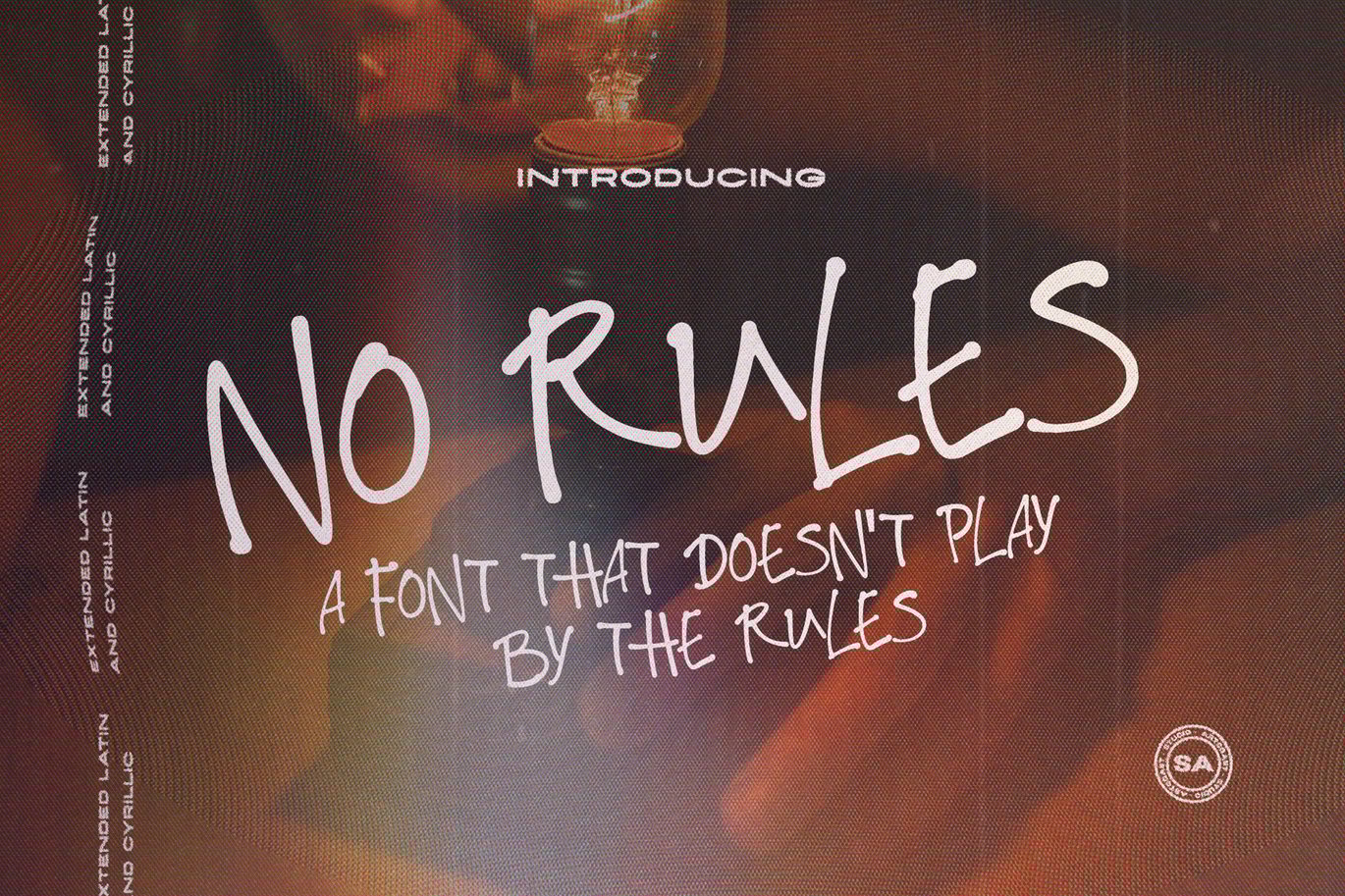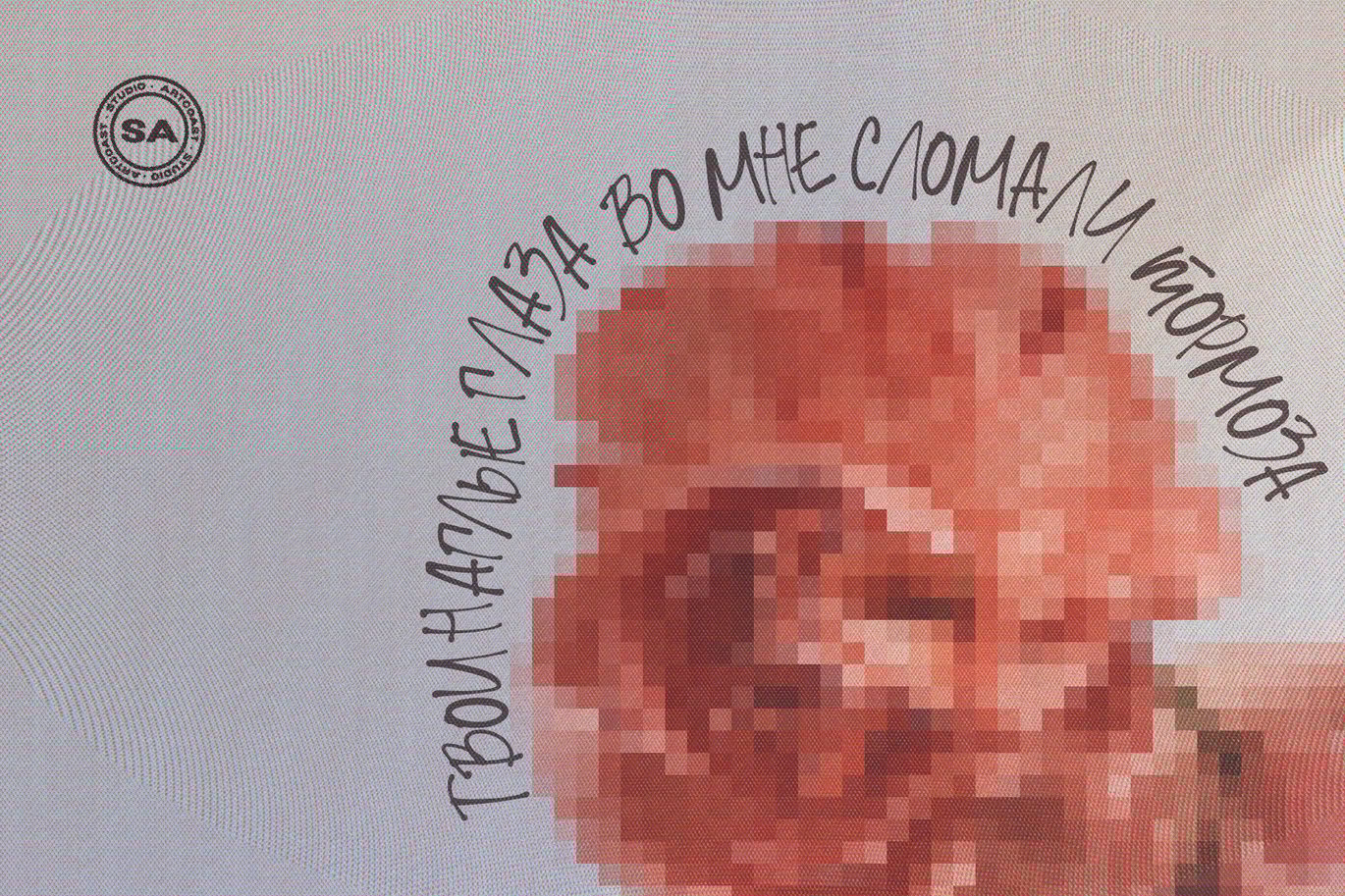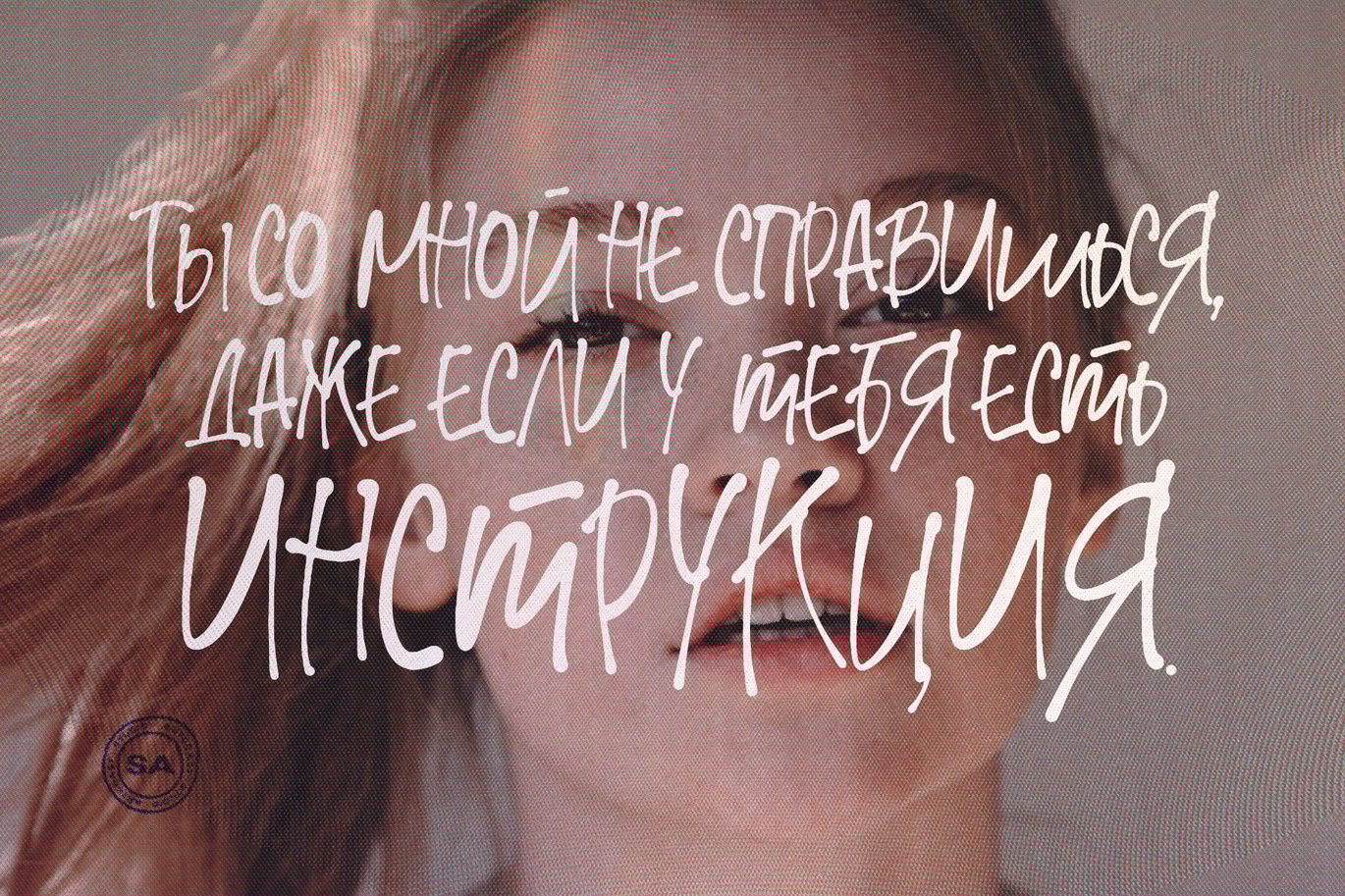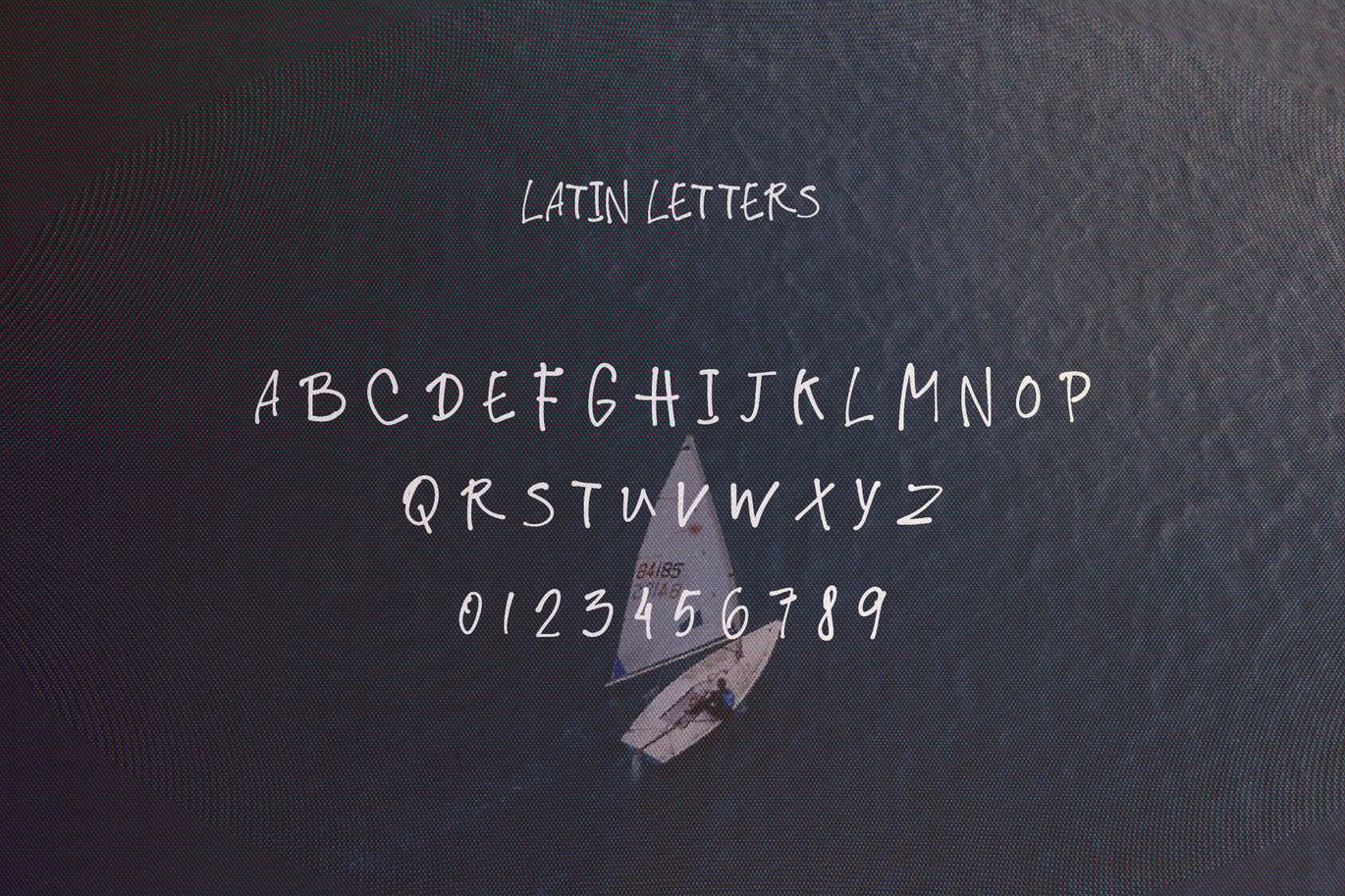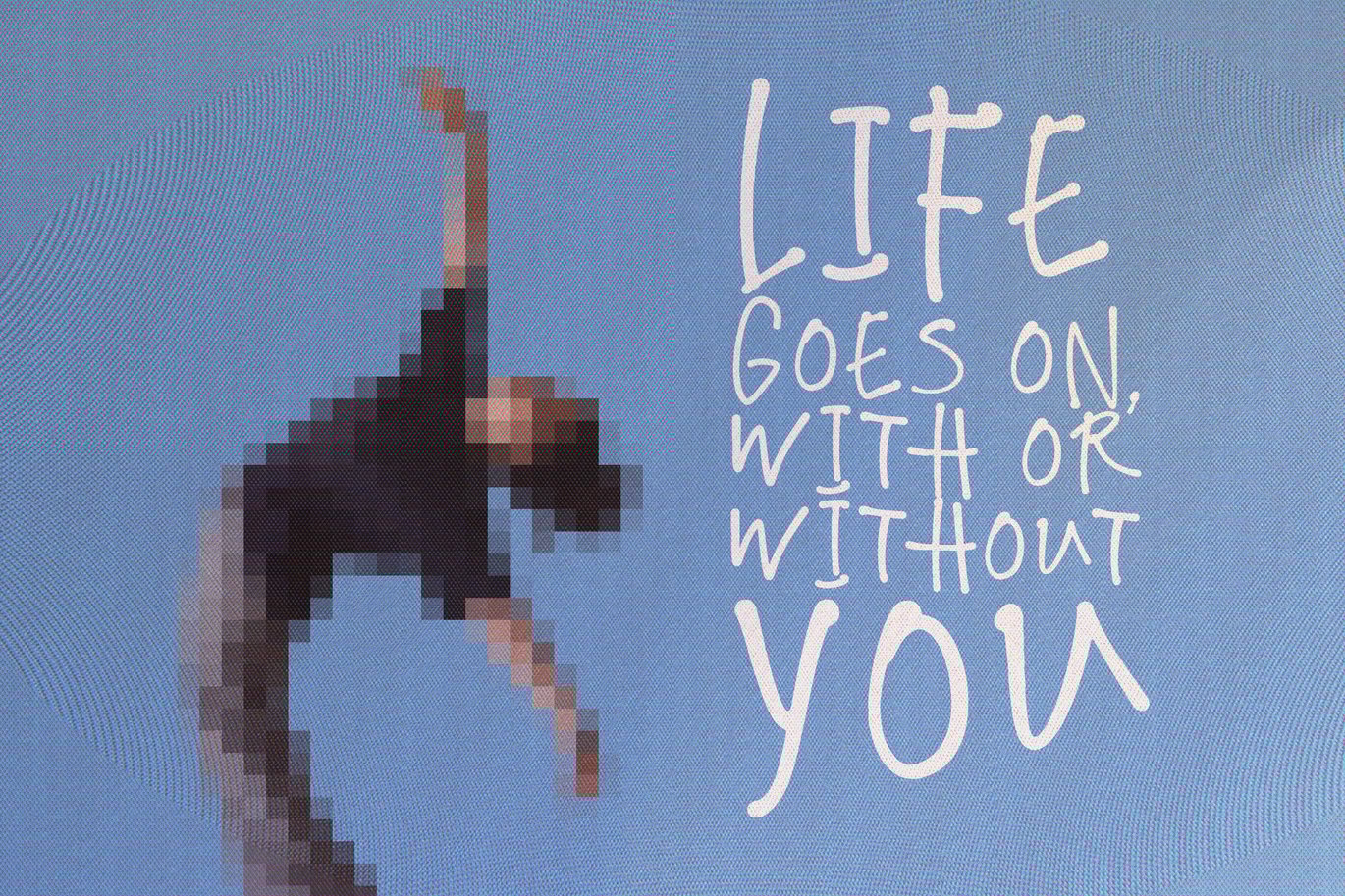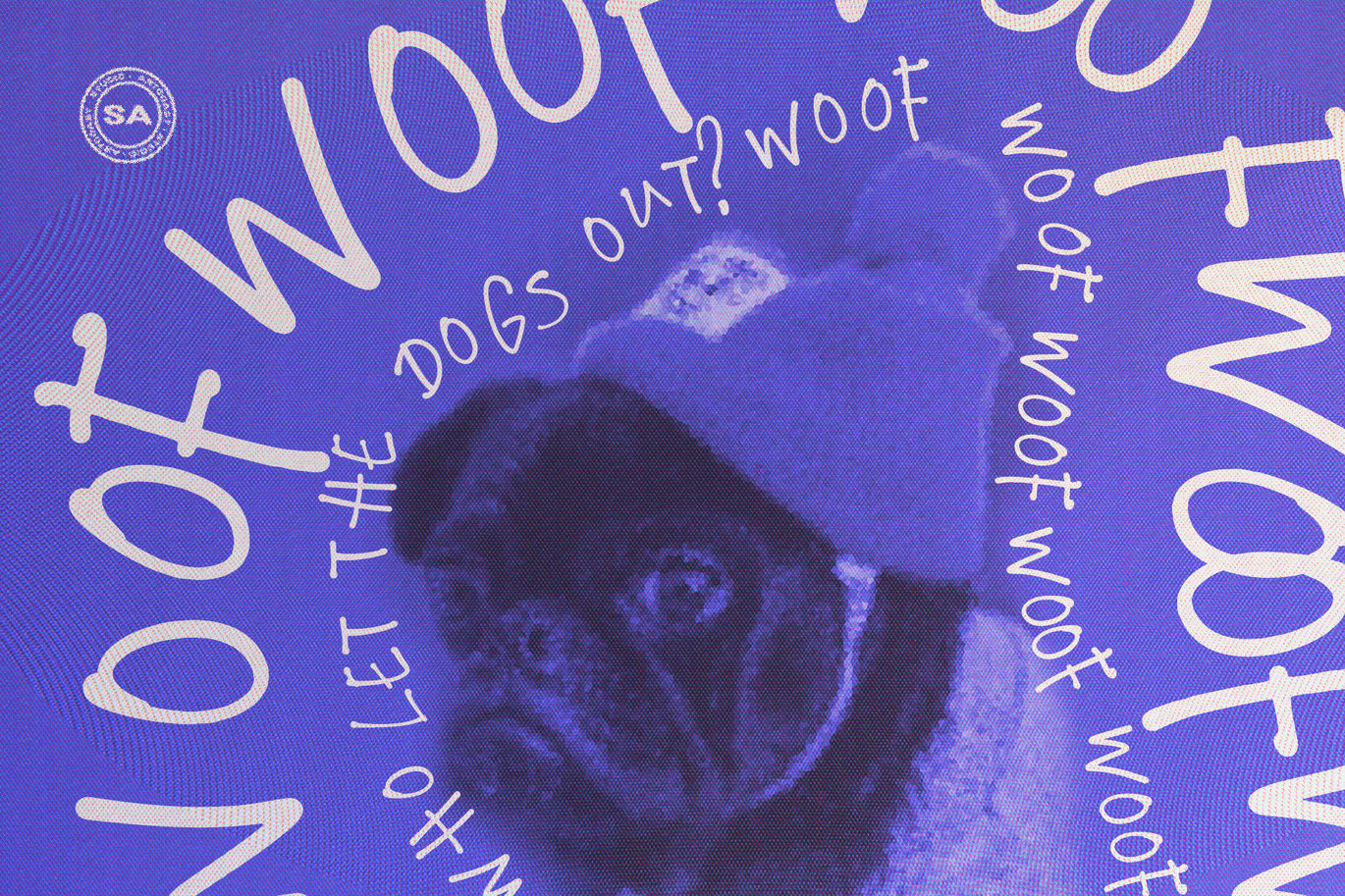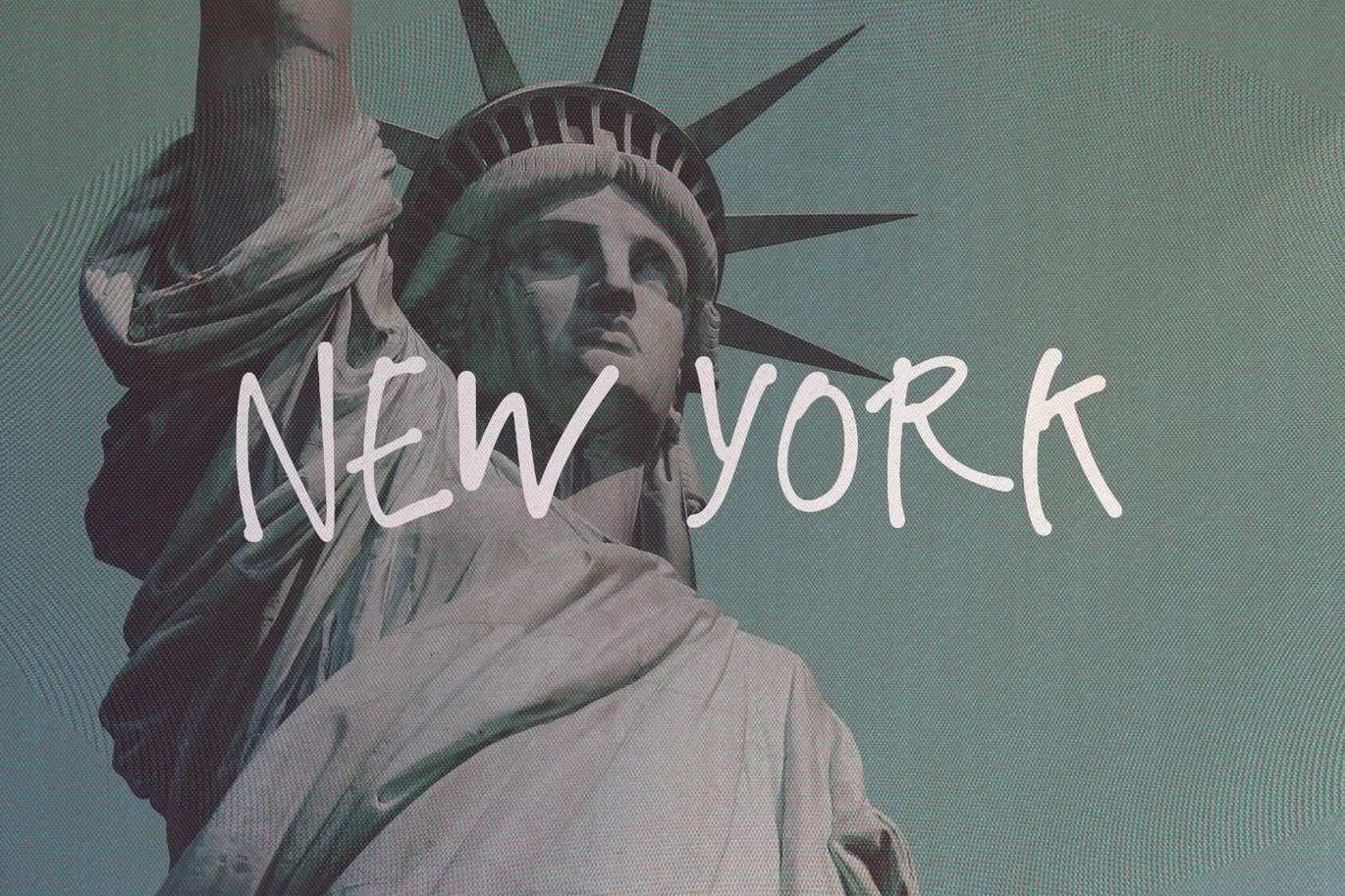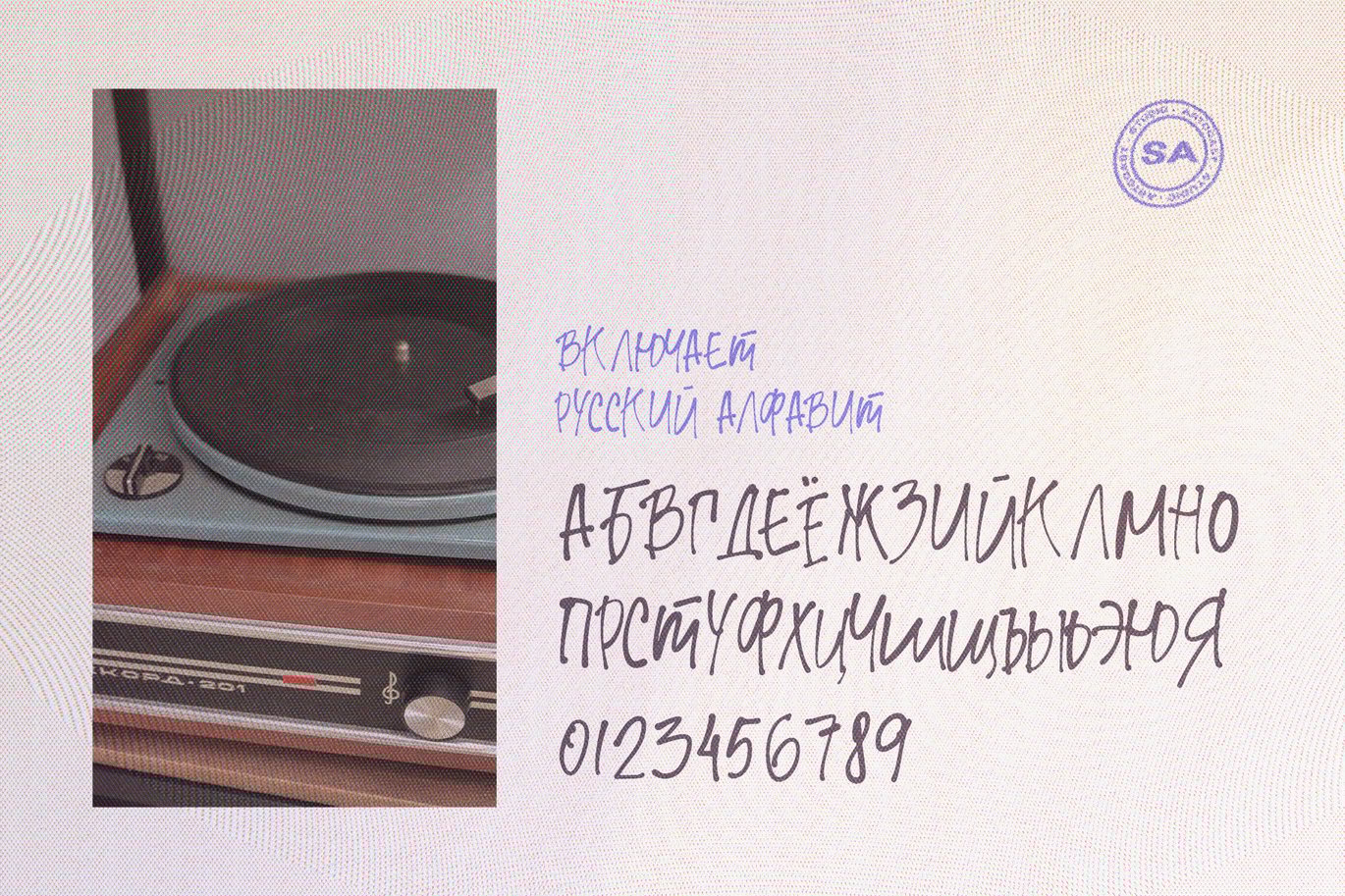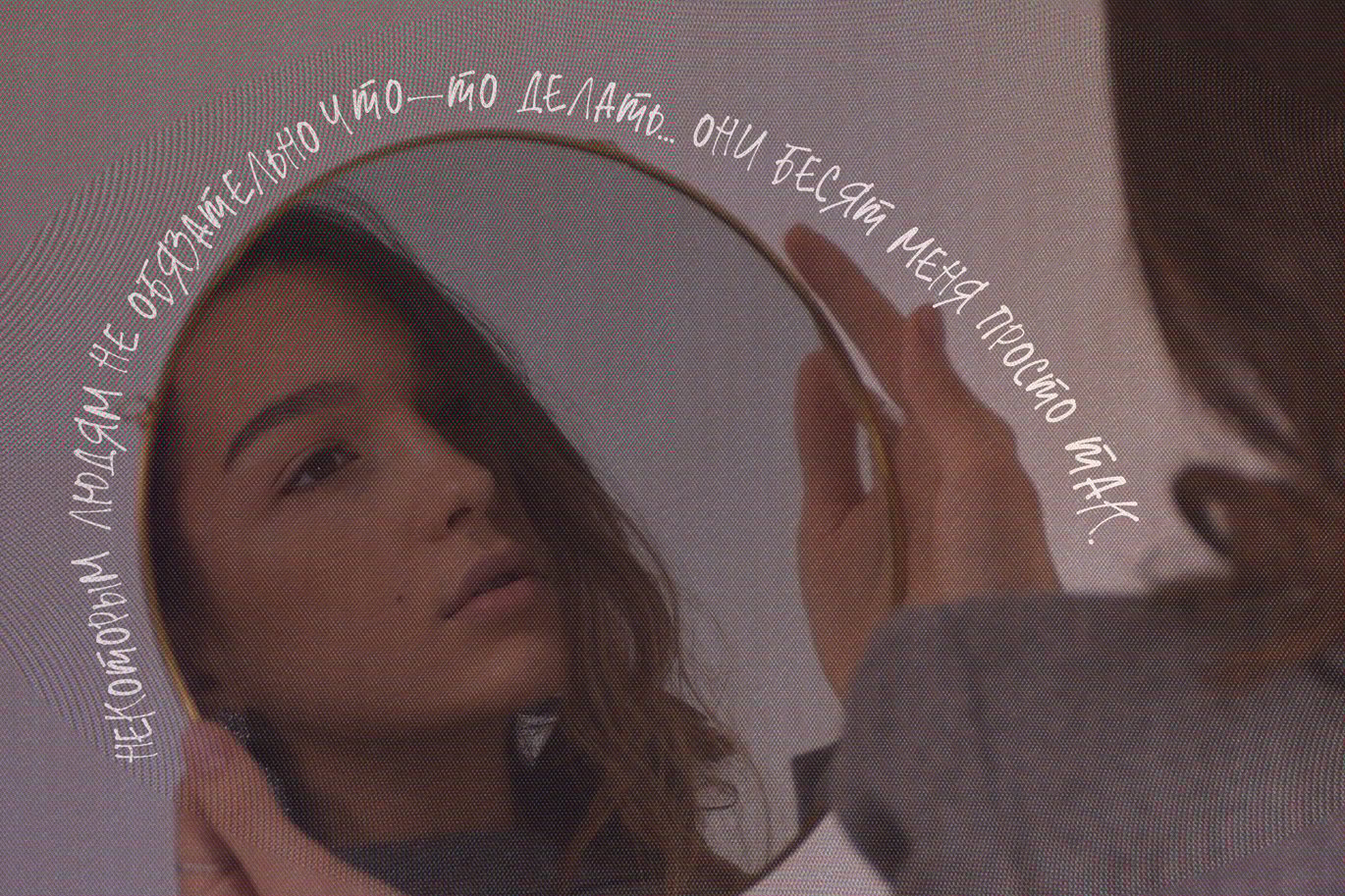
NO RULES || Cursive Handwritten Font
Brash, crazy handwritten font that doesn’t play by the rules. Written easily and naturally with a glass of good whiskey. Write beautiful quotes with this font, get the truth with a strong word, and this font will help you.
Cyrillic
Latin Extended